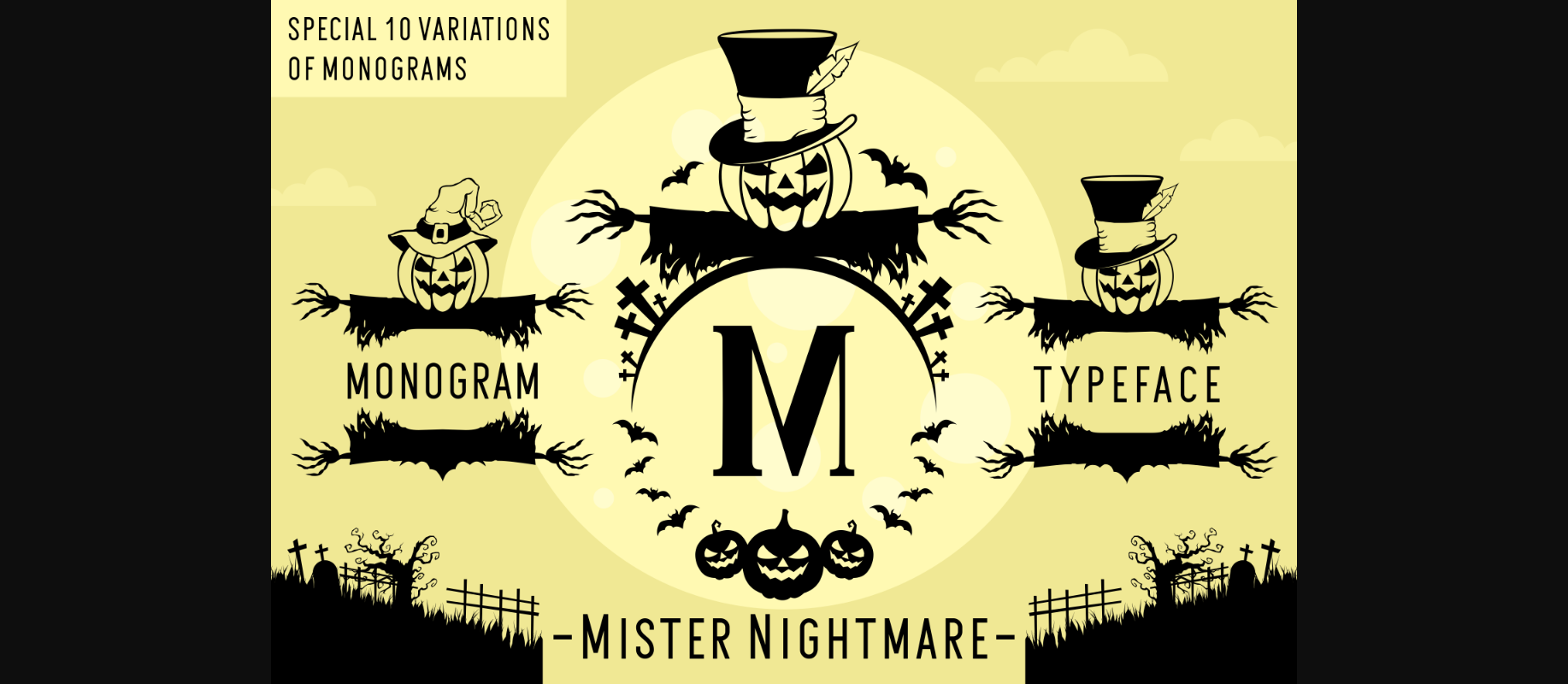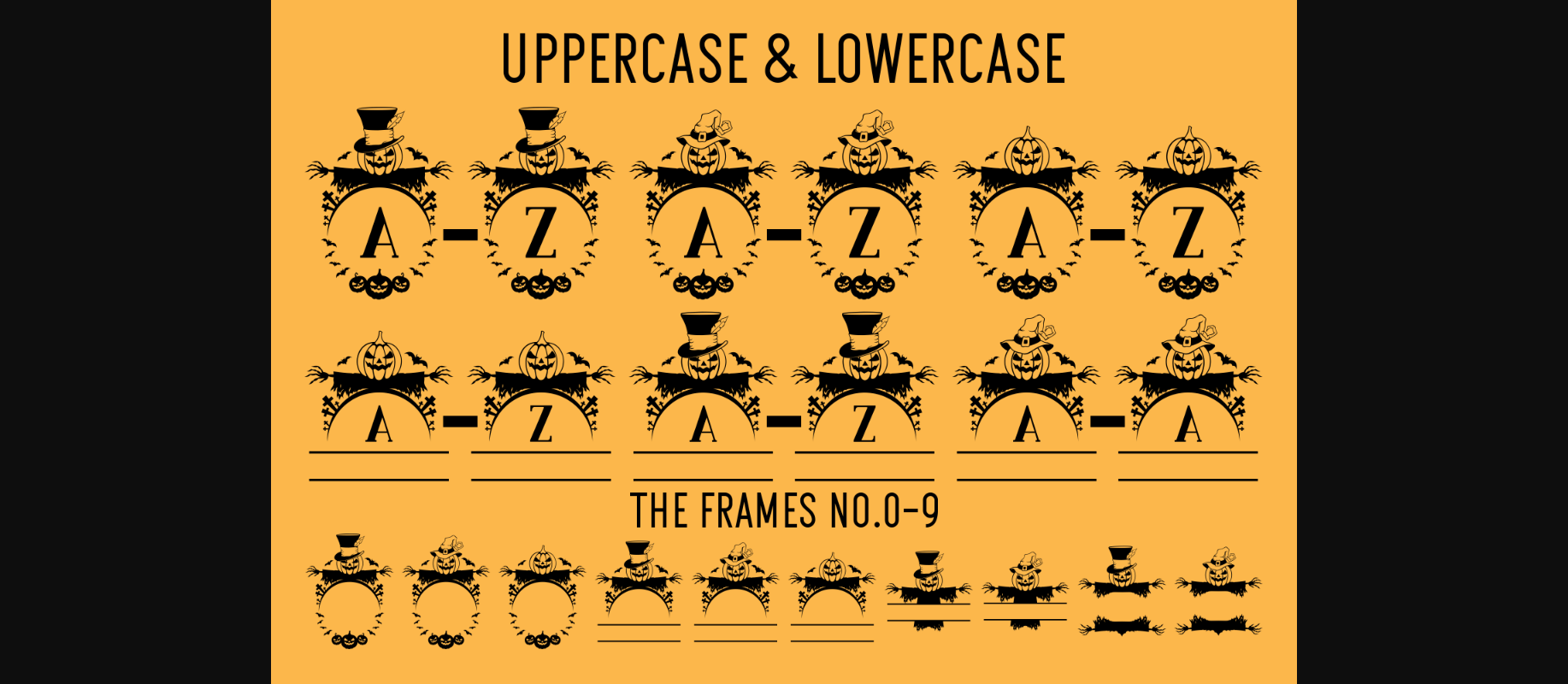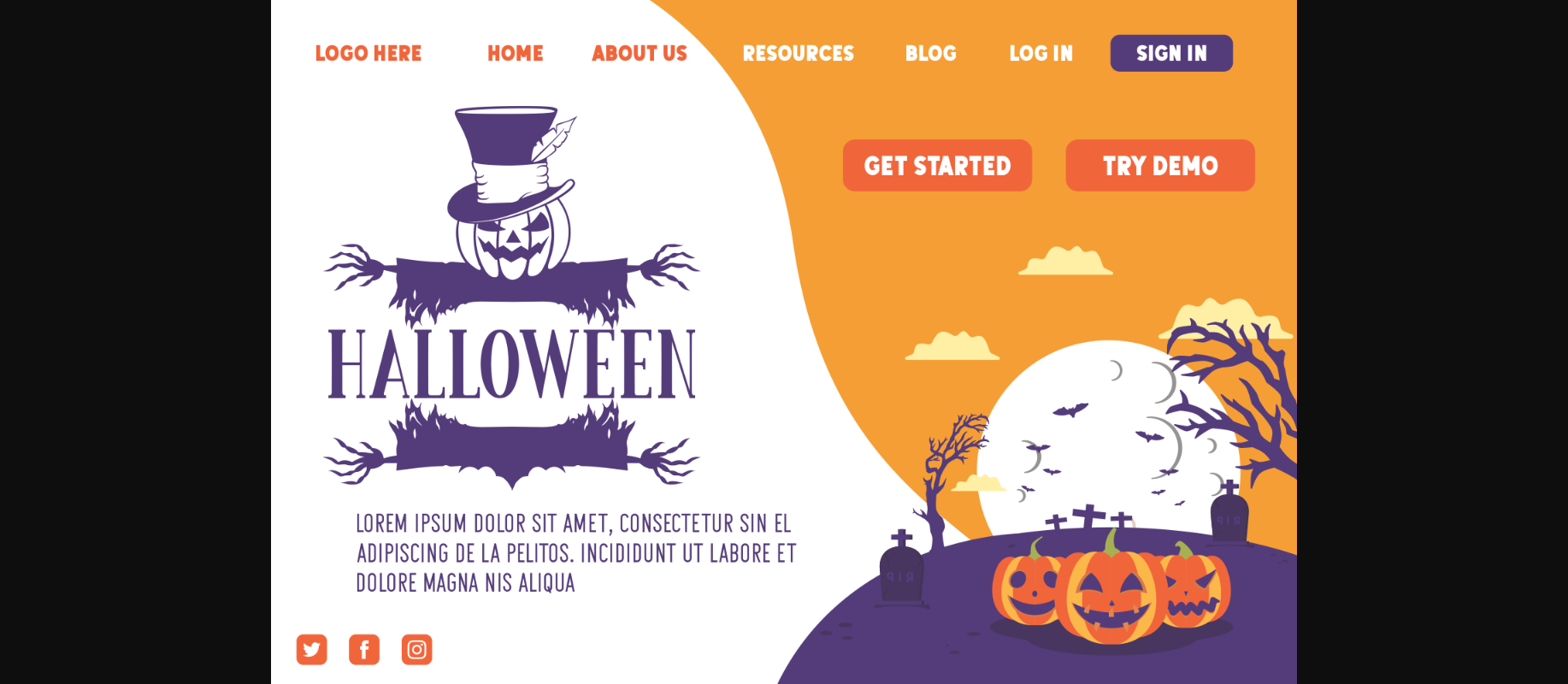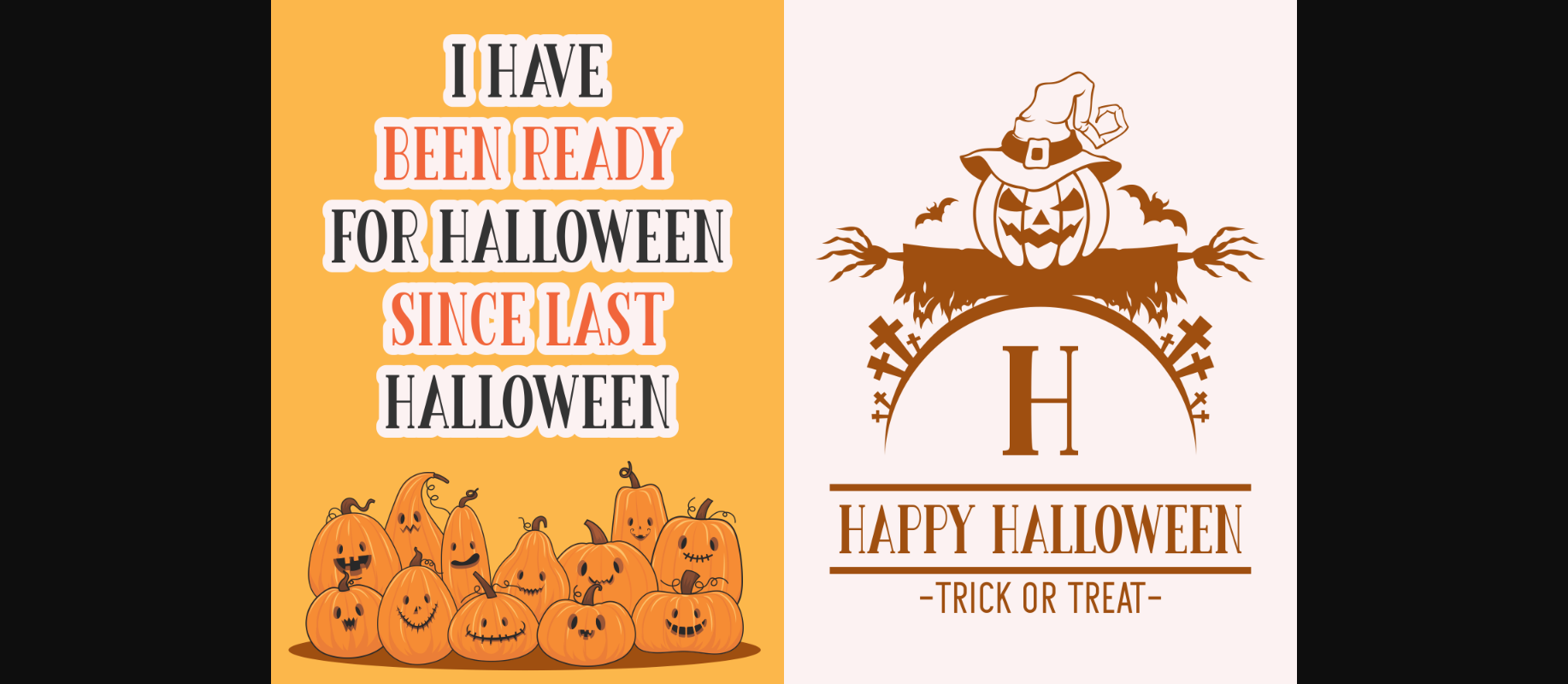
About Mister Nightmare Font
Mister Nightmare is highly detailed and unique decorative font. Add this romantic and lovely looking font to each of your love letters, wedding invitations or favorite design ideas, and you will be astounded by the outcome.